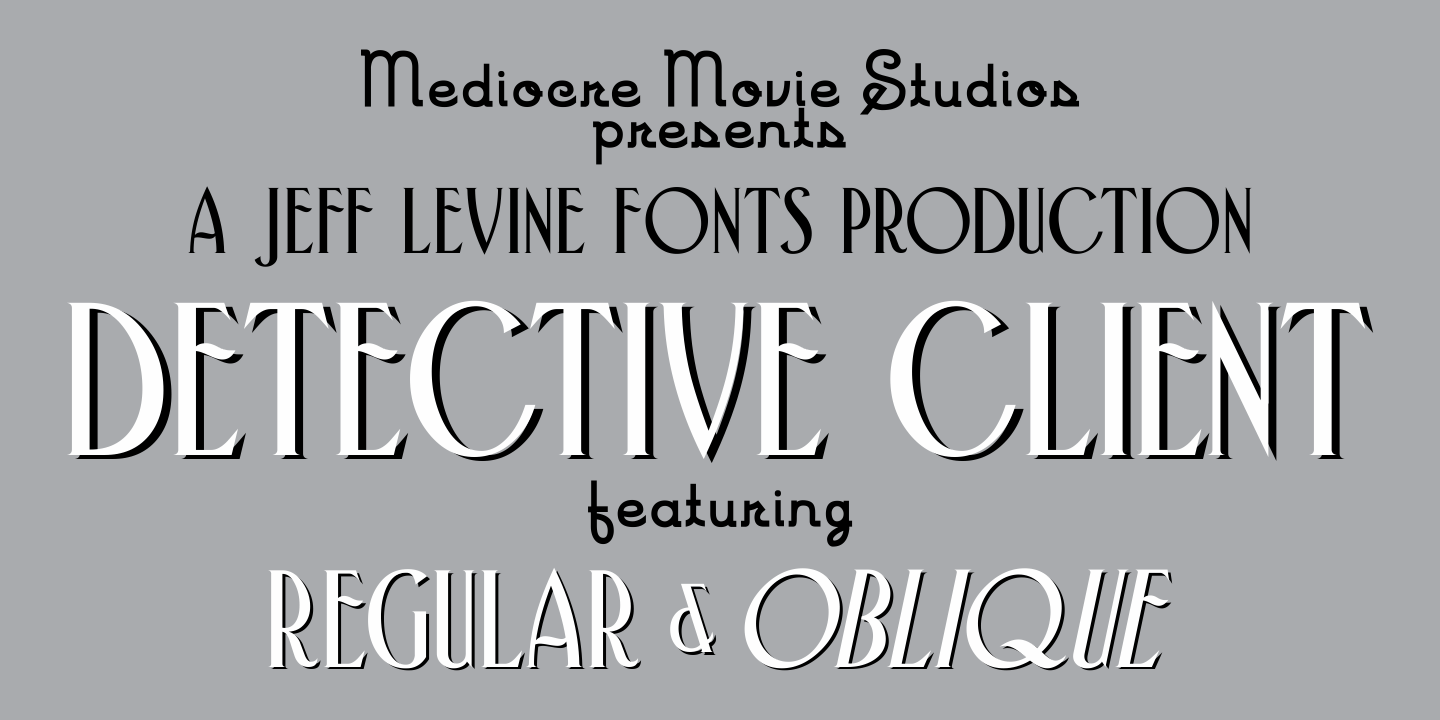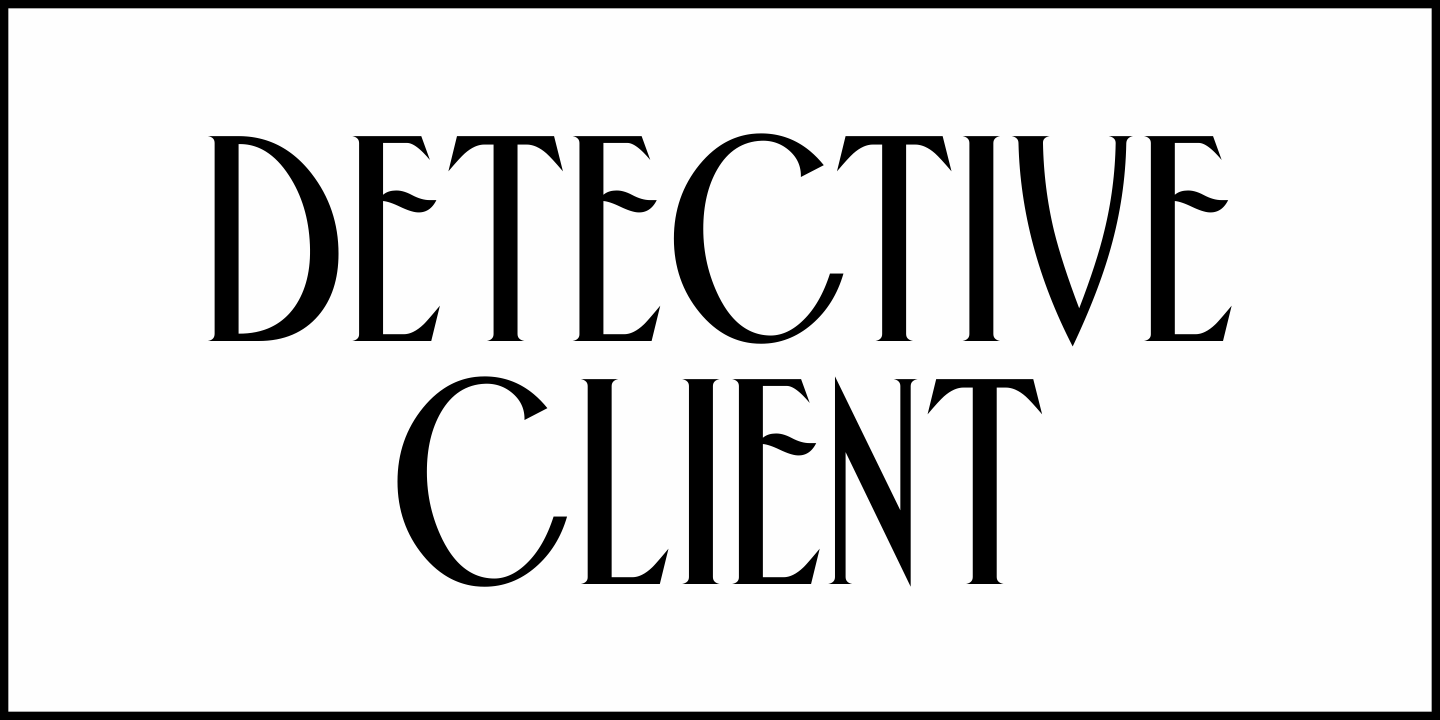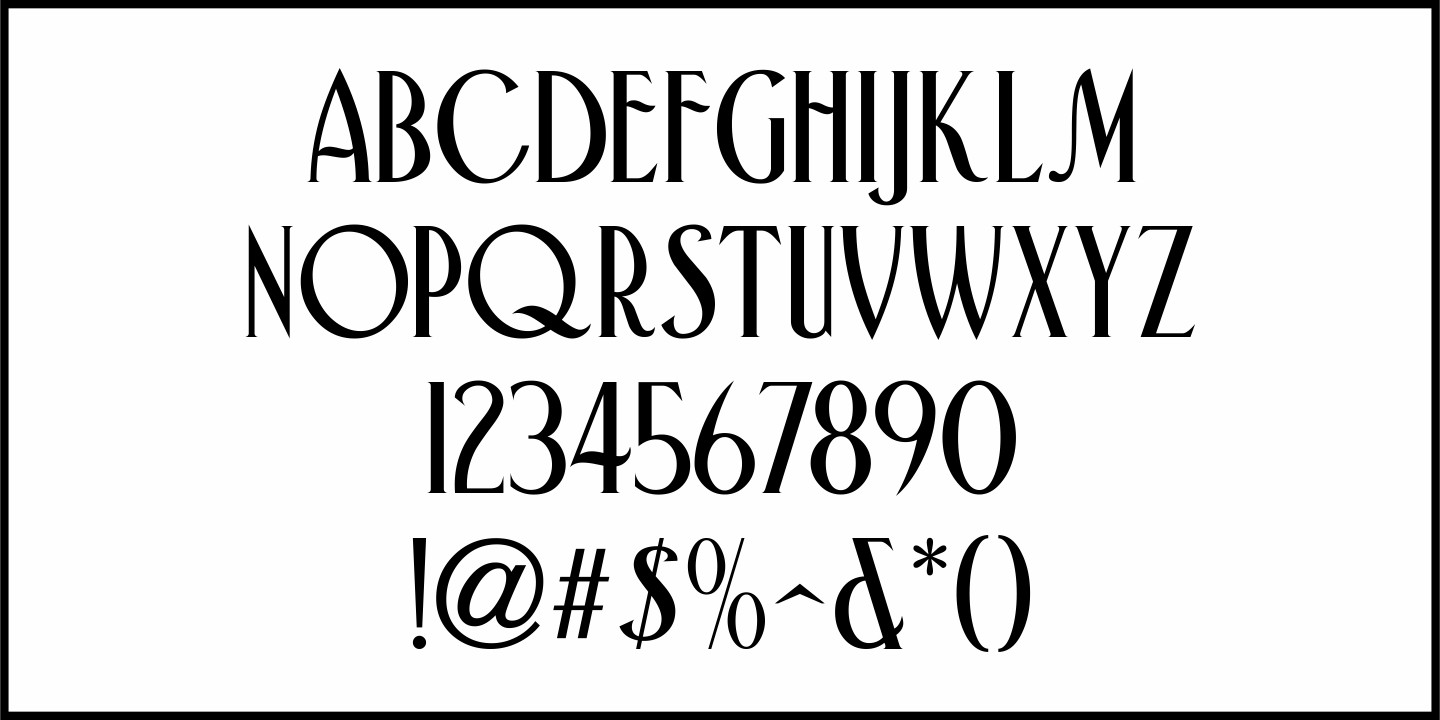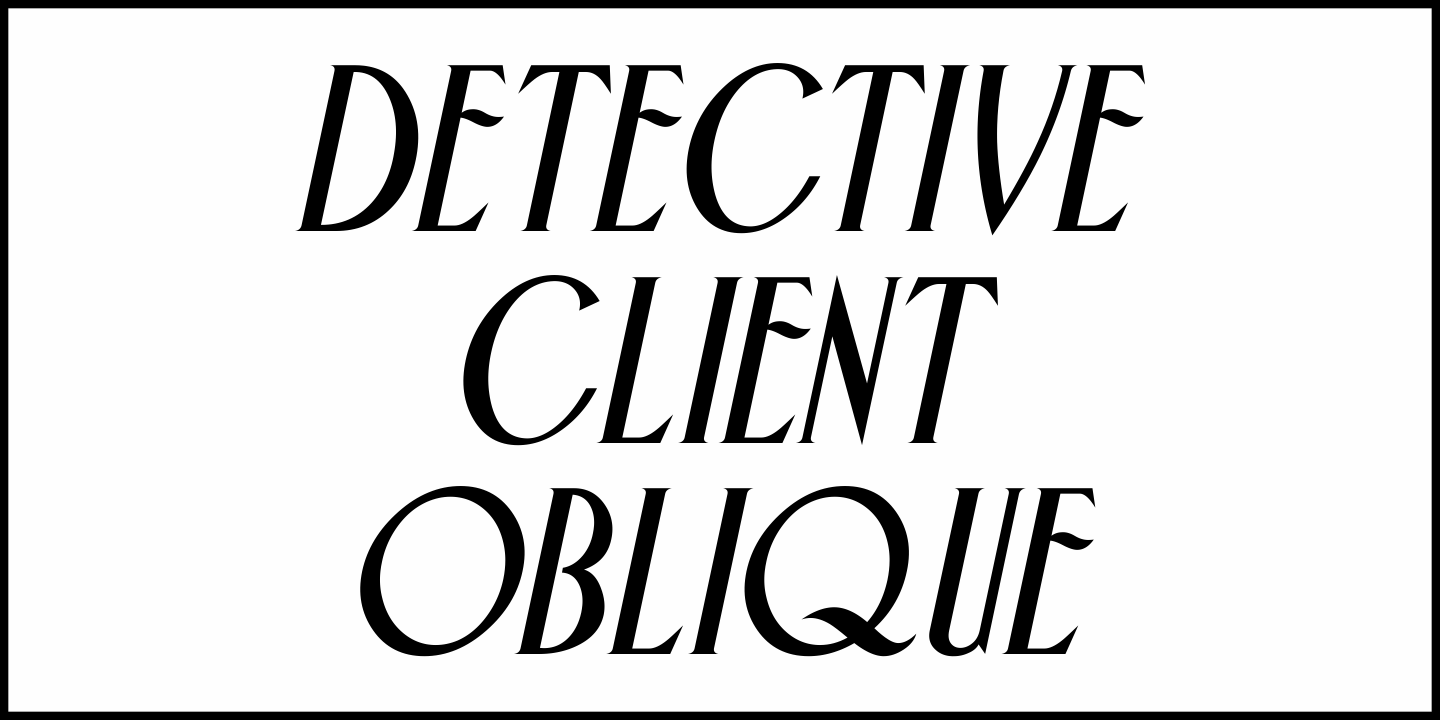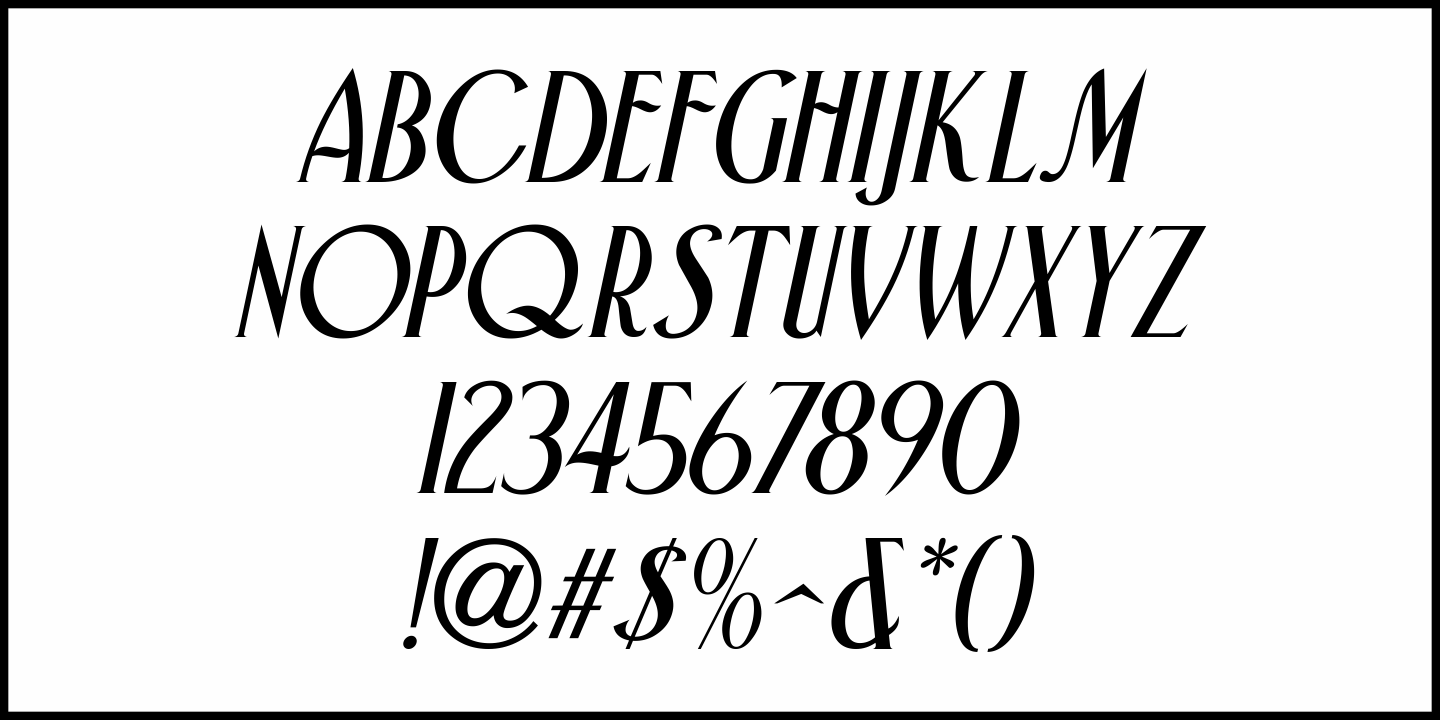
Detective Client
There is no doubt that the 1941 version of “The Maltese Falcon” was superior to the prior two attempts by Warner Brothers at filming Dashiell Hammett’s 1930 novel.
Sam Spade was perfectly portrayed by Humphrey Bogart, and the supporting cast of Mary Astor, Peter Lorre, Sidney Greenstreet and Elisha Cook, Jr. rounded out the main players in a great suspense film that is considered to be the first (if not one of the first) of the film noir genre.
The title cards for the production and cast credits were hand-lettered in a spurred serif type style strongly reminiscent of the Art Nouveau period, so instead of naming the digital version with some “tough guy detective” moniker, it was decided that Detective Client JNL was more appropriate.
After all, this is a reasonably attractive font, and in this kind of film it’s usually the “attractive damsel in distress” [be she the victim or the actual perpetrator] that gets the story rolling…
Detective Client JNL is available in both regular and oblique versions.